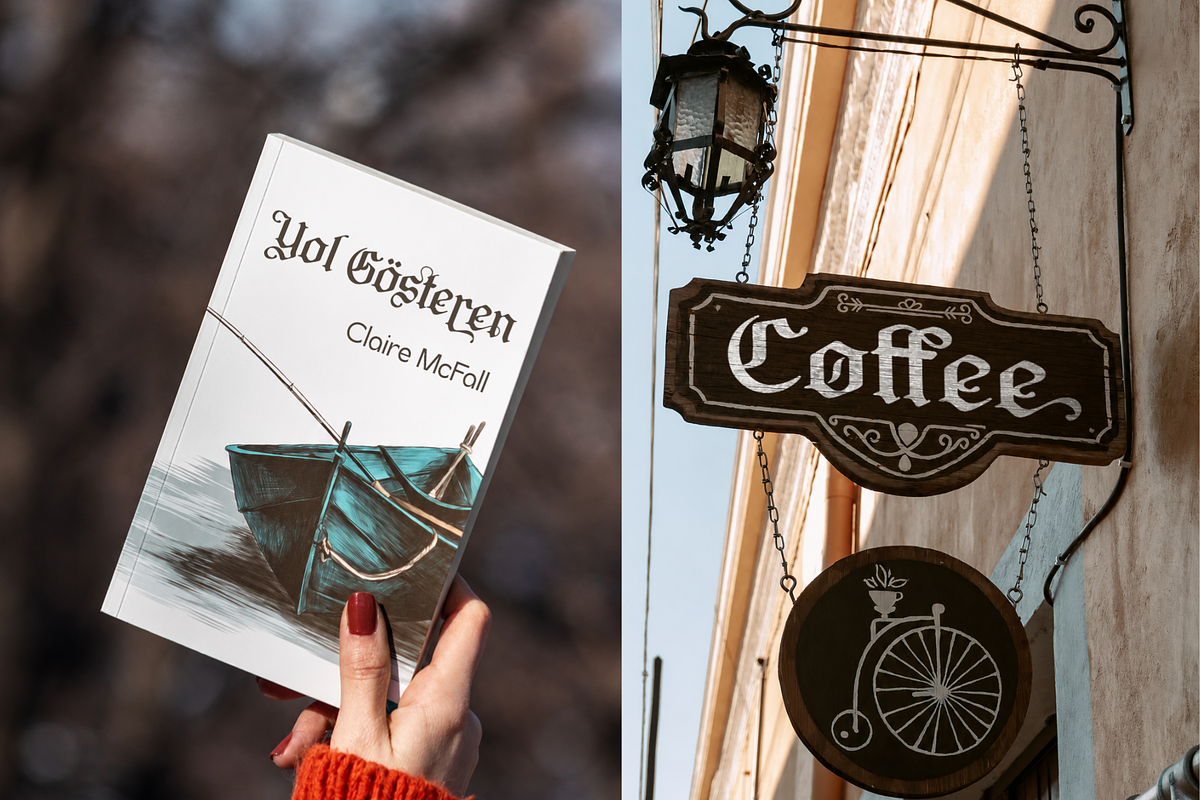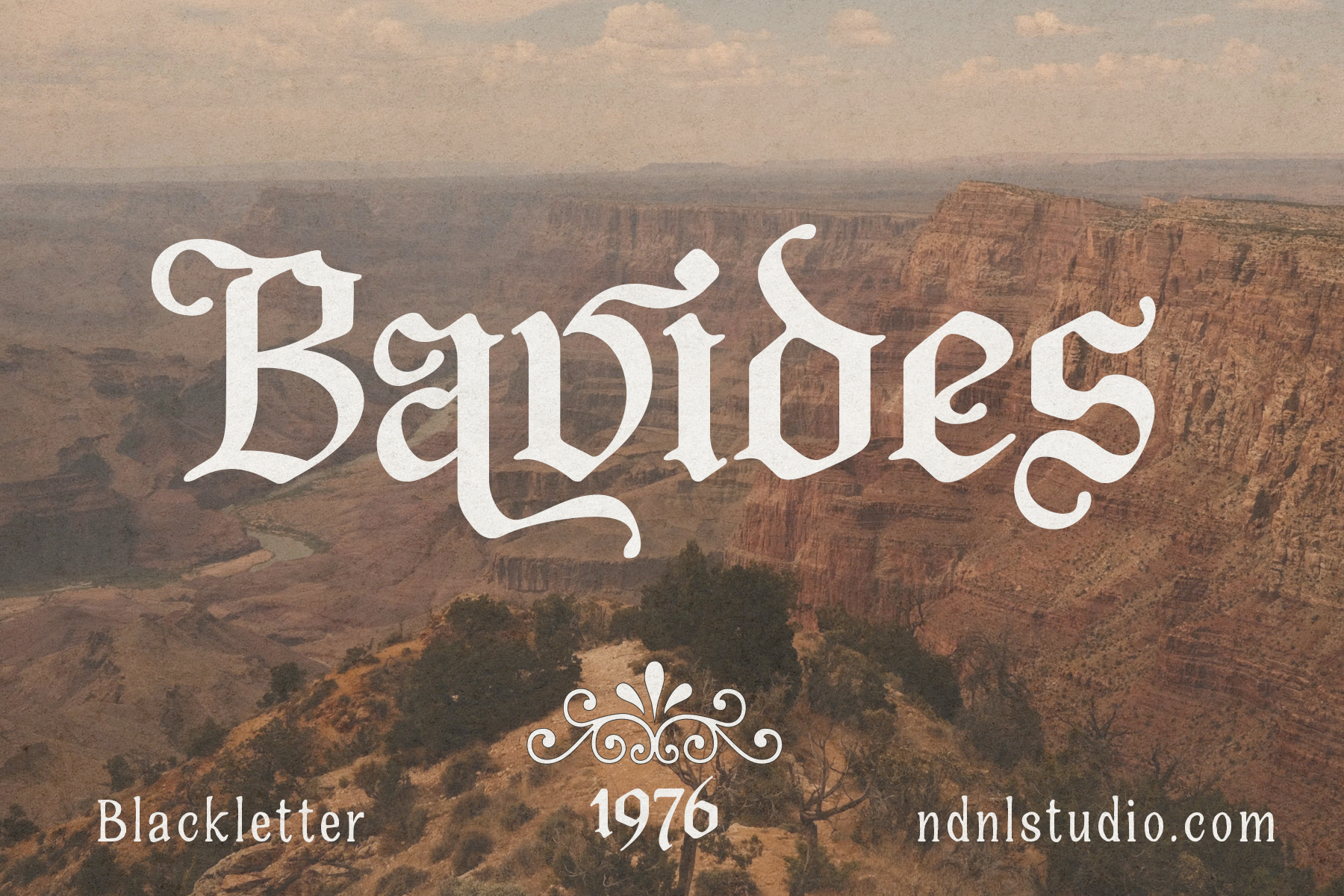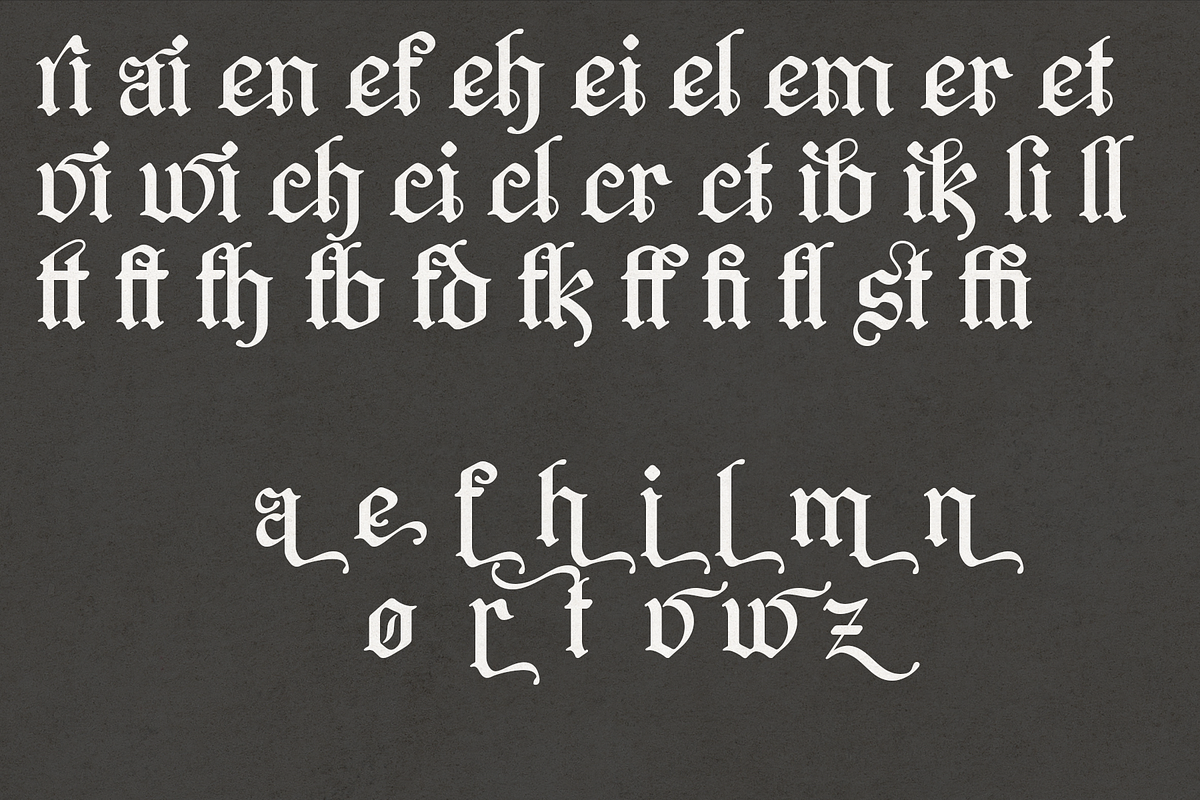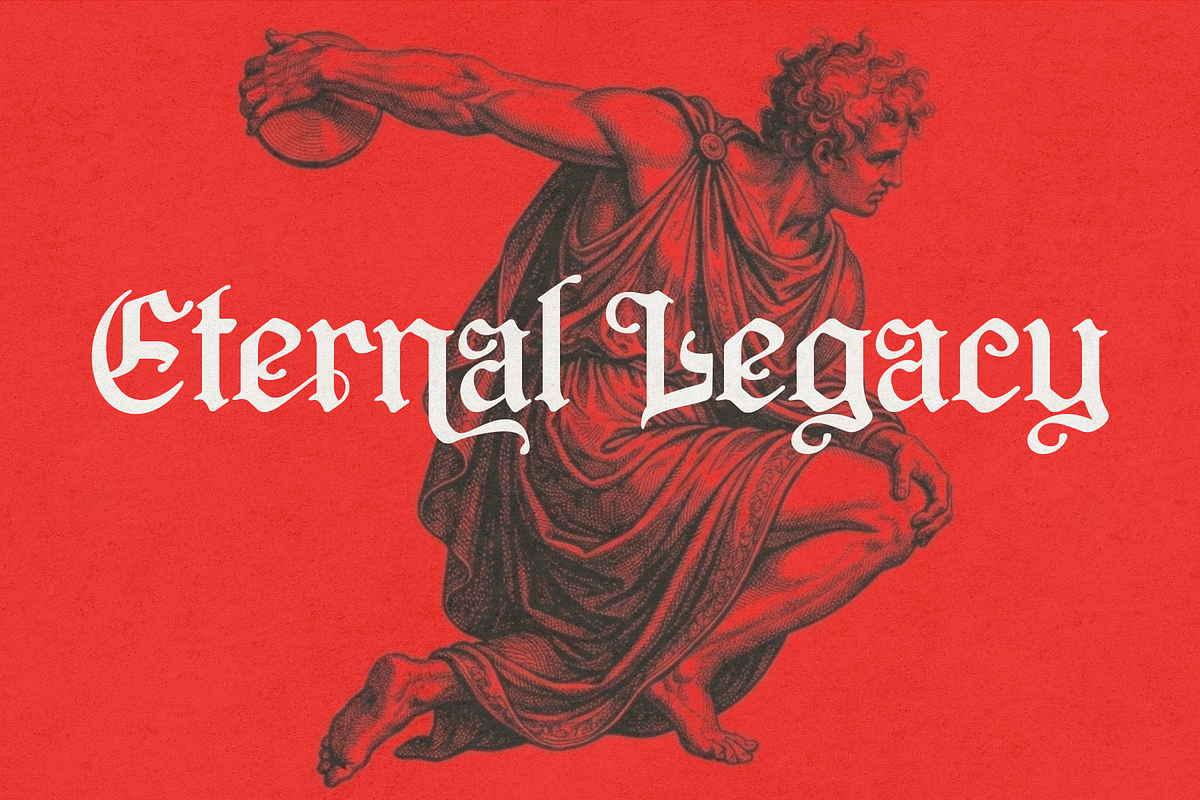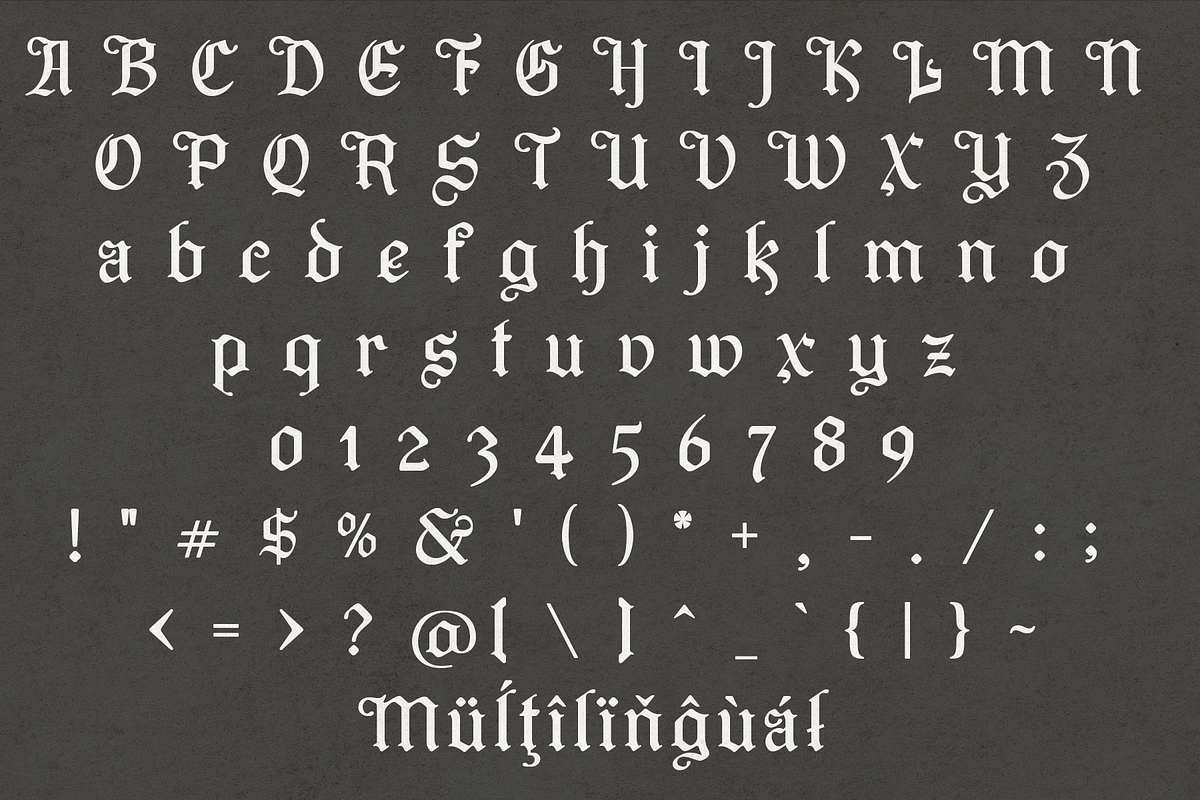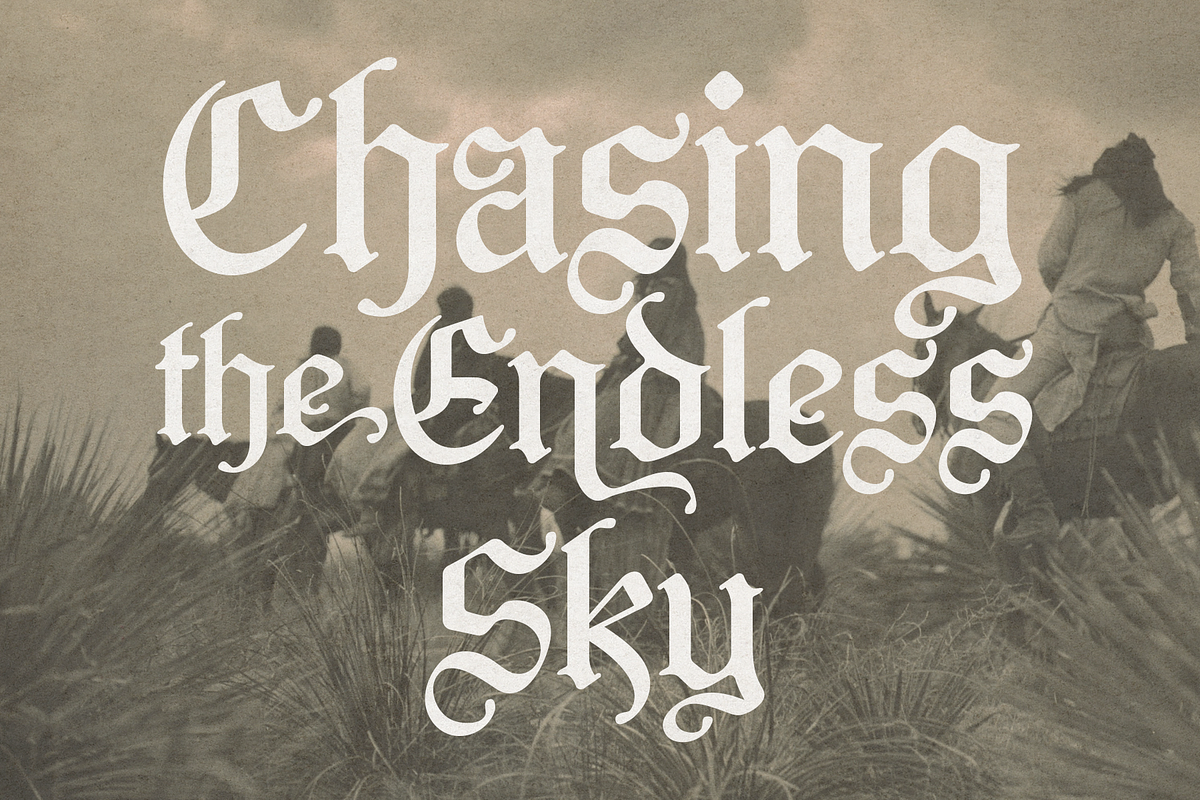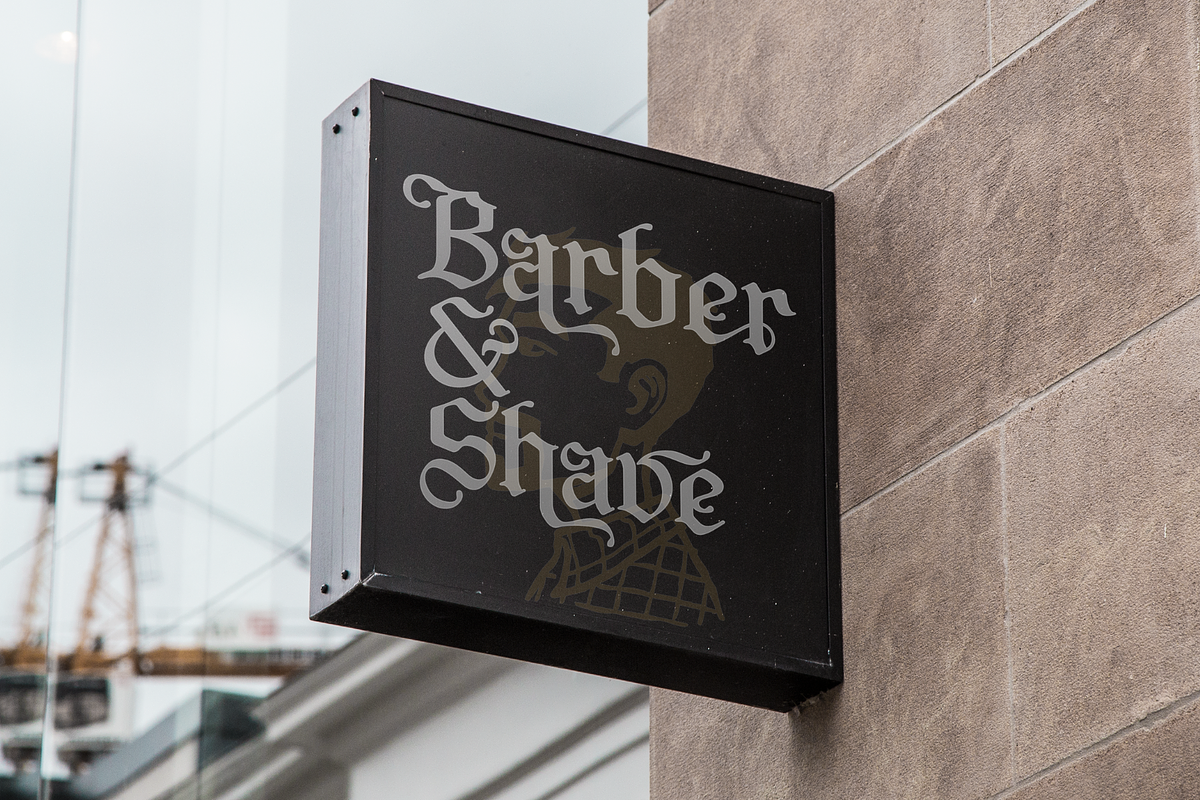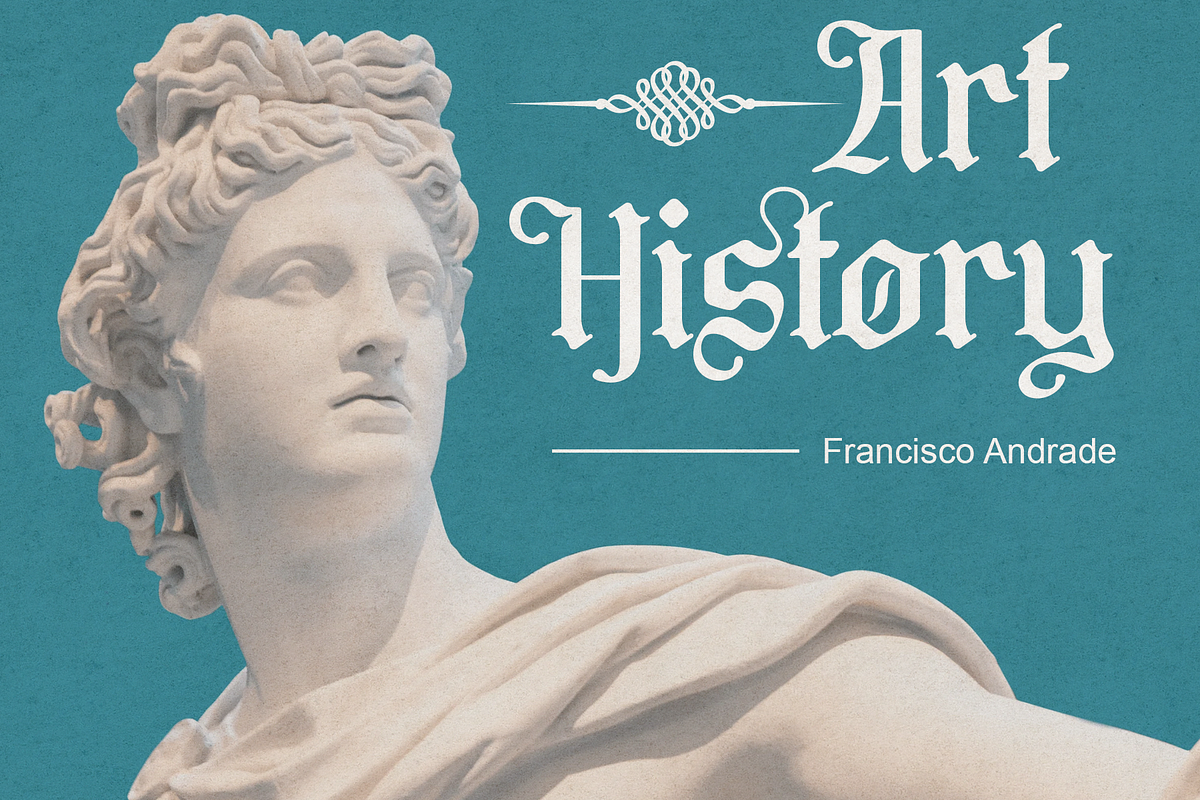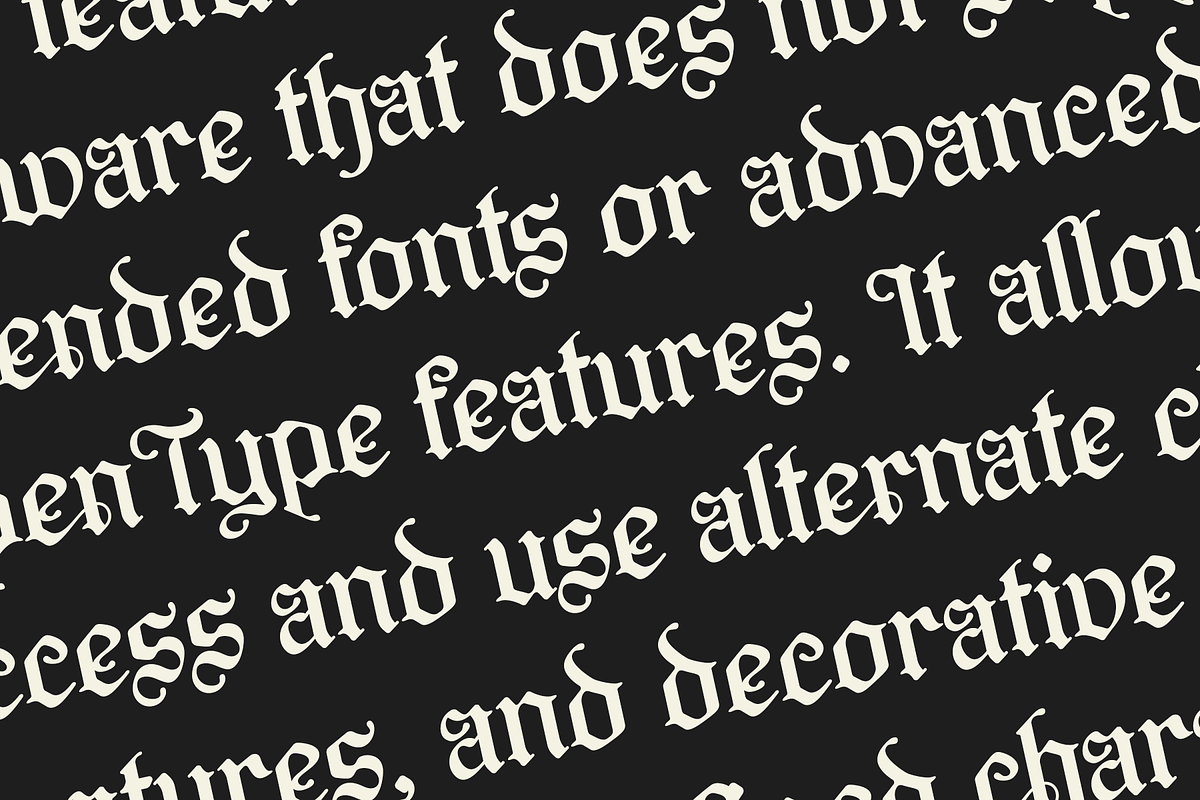
Bavides – Blackletter Font
Bavides is a classic Blackletter typeface inspired by traditional Gothic calligraphy while refined for contemporary design. Its sharp strokes, elegant decorative terminals, and balanced proportions create a timeless aesthetic that is both bold and sophisticated.
Designed to evoke a sense of history, craftsmanship, and prestige, Bavides is perfect for projects that require a vintage or medieval atmosphere. The font includes uppercase, lowercase, numerals, punctuation, and multilingual support, making it a versatile choice for both print and digital applications.
– Character set A-Z
– Uppercase & Lowercase
– Numerals & Punctuation
– Accented Characters (West Europe)